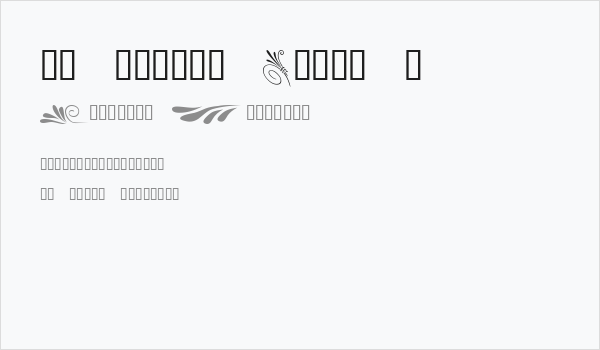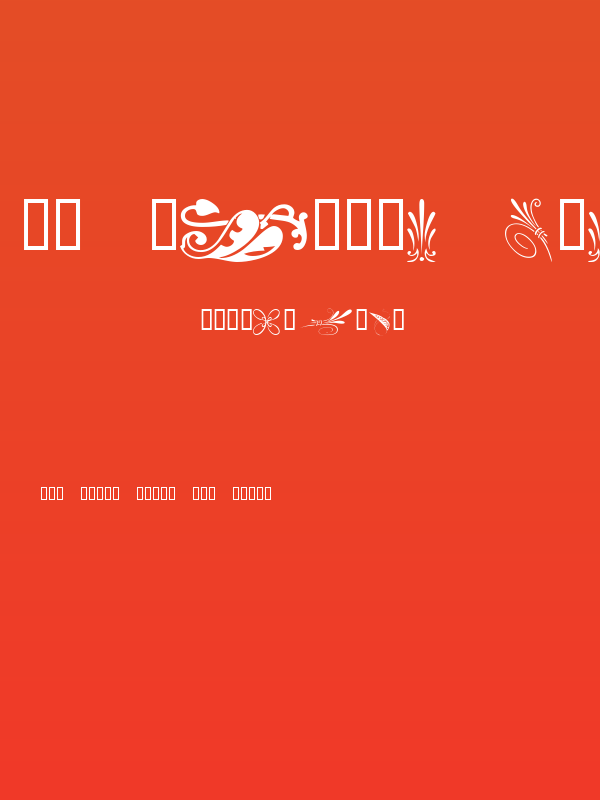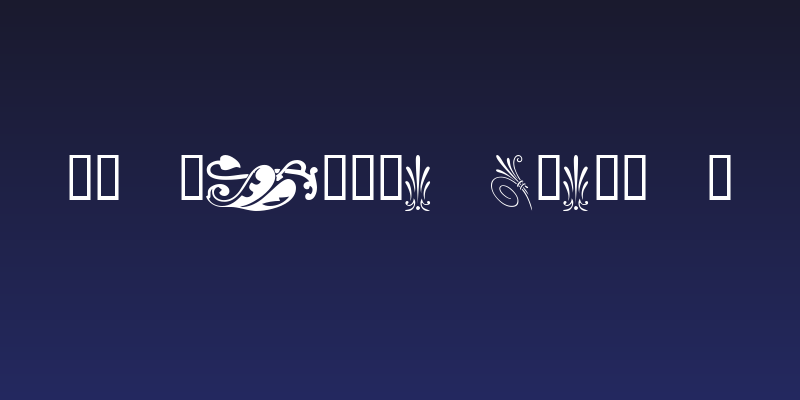
KR Simple Fleur 6 Font
KR Simple Fleur 6 Description
This is not a valid font. The image appears to contain decorative elements or symbols rather than a standard alphabetic or numeric font set. The characters are represented by ornate, floral designs that do not correspond to typical letterforms or numerals. These elements are more suitable for embellishments or decorative purposes rather than functional typography.
| Use Case | Decorative elements, not suitable for text. |
| Proposed Projects | These decorative elements could be used for borders, invitations, or artistic designs. |